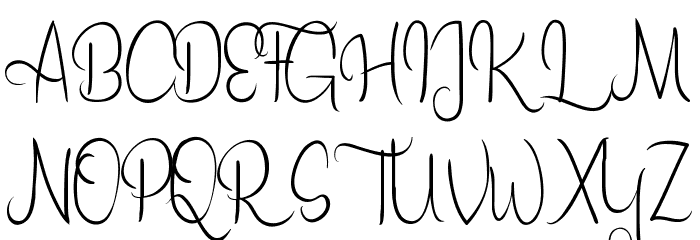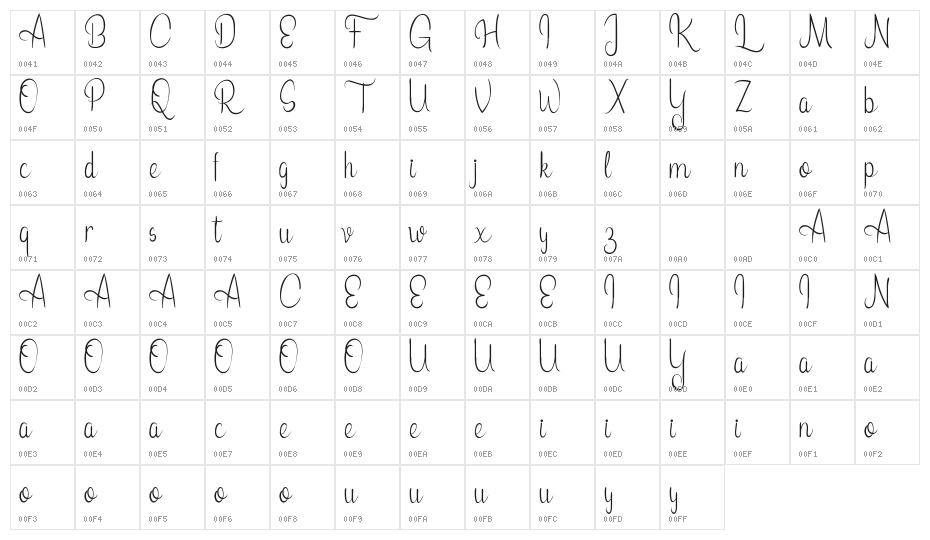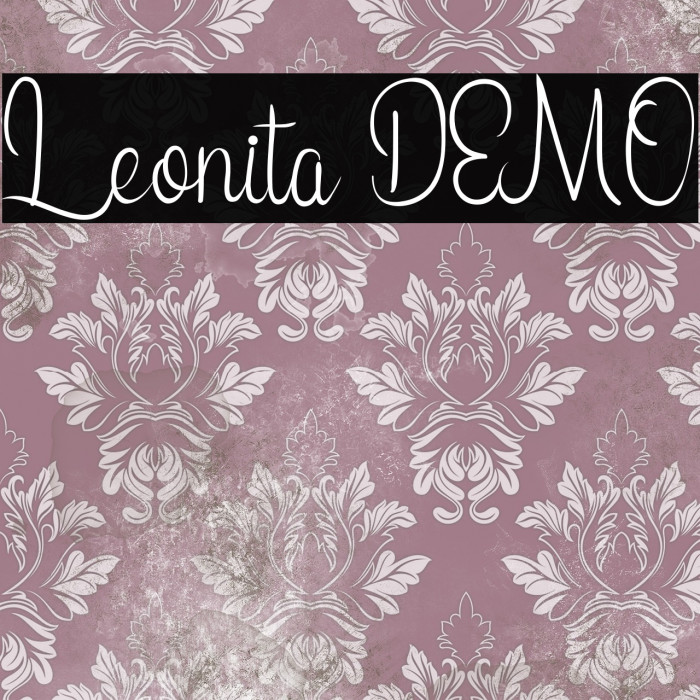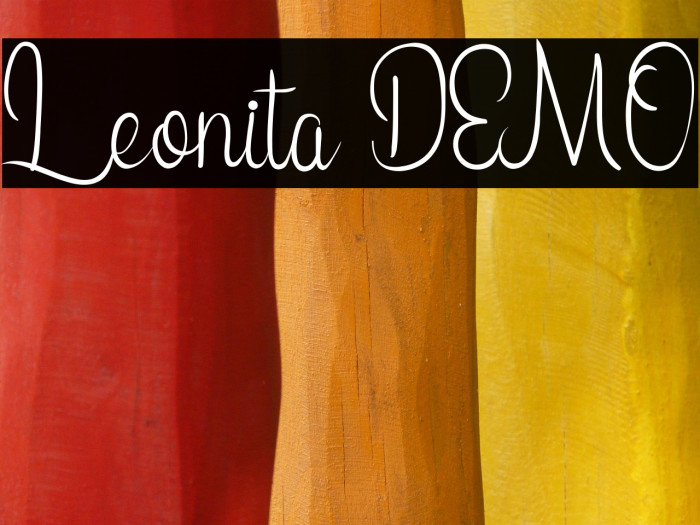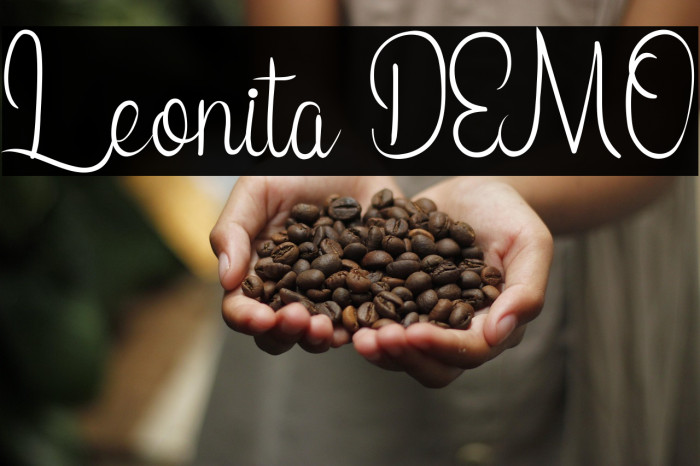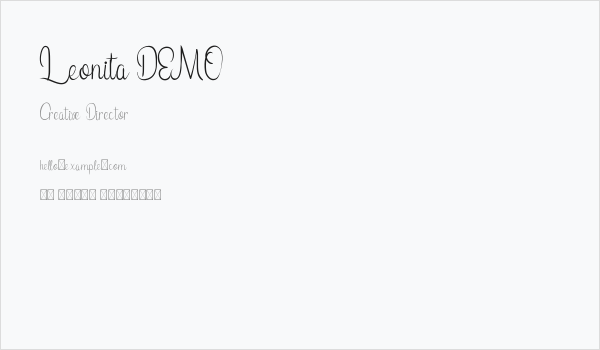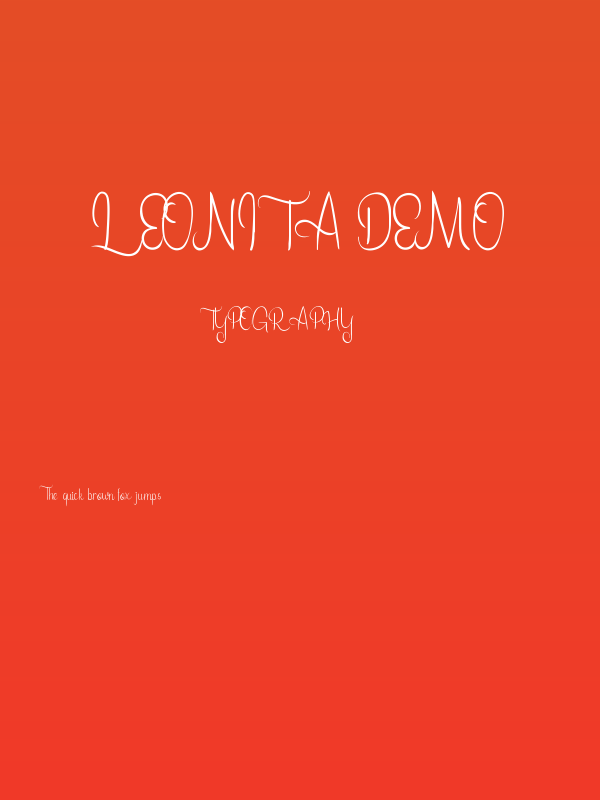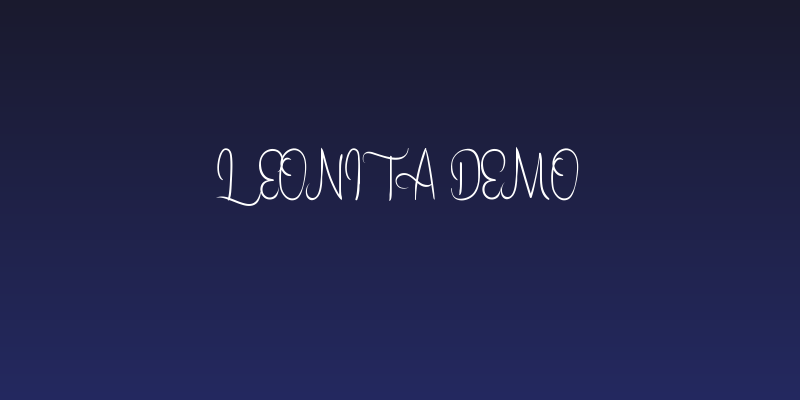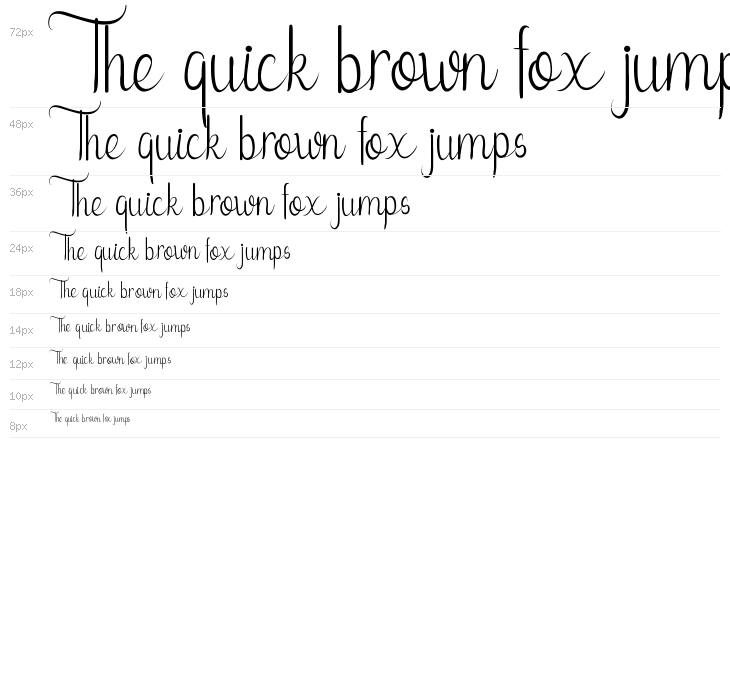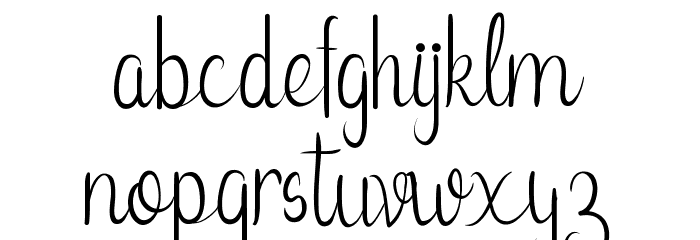
Leonita DEMO Font
Leonita DEMO Description
This font features an elegant and flowing script style, characterized by its smooth, cursive lines and graceful curves. The uppercase letters are ornate, with extended strokes and loops that give a sense of sophistication and fluidity. The lowercase letters maintain a consistent flow, complementing the uppercase with their rounded forms and gentle slants. The numerals and special characters are designed to match the overall aesthetic, ensuring a cohesive look across all text. This font is ideal for projects that require a touch of elegance and class, such as wedding invitations, formal event programs, or luxury branding materials.
| Overall Style | Elegant, Sophisticated |
| Use Case | Headlines, Invitations, Branding |
| Proposed Projects | Wedding invitations, luxury branding, formal event programs, elegant stationery. |